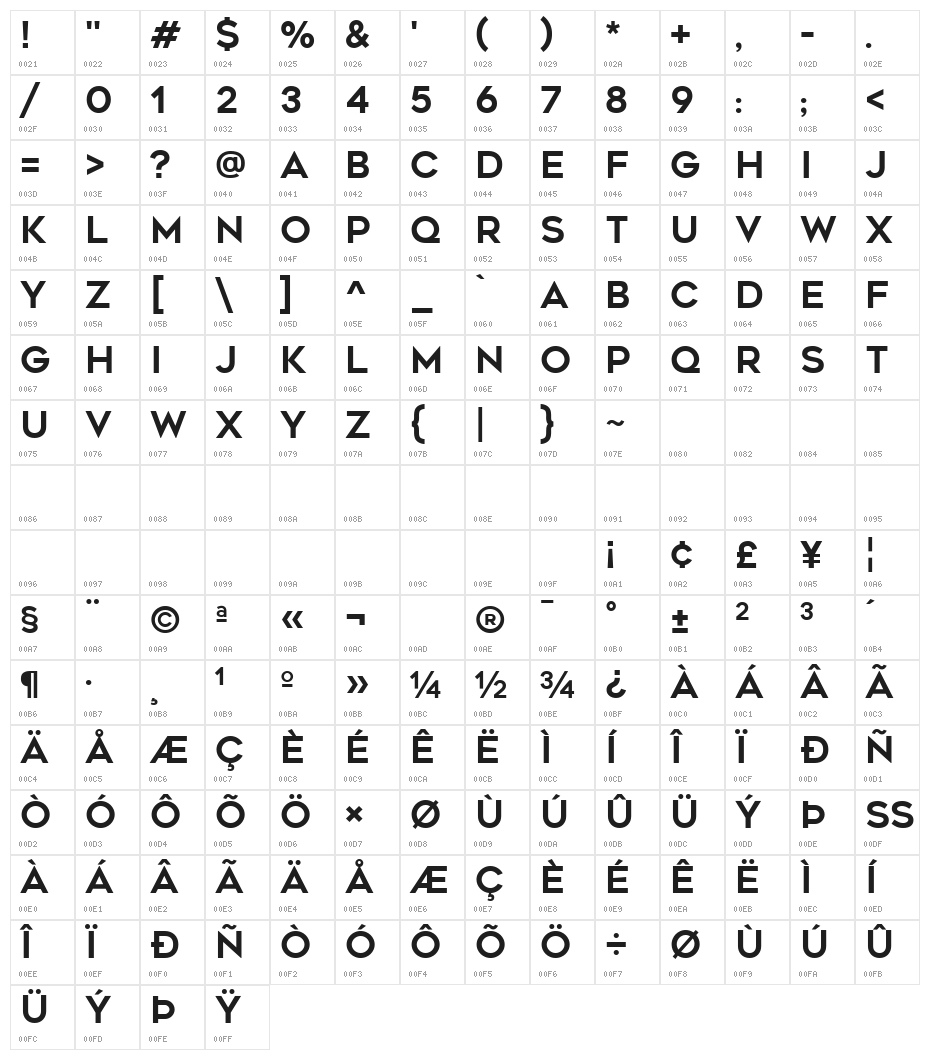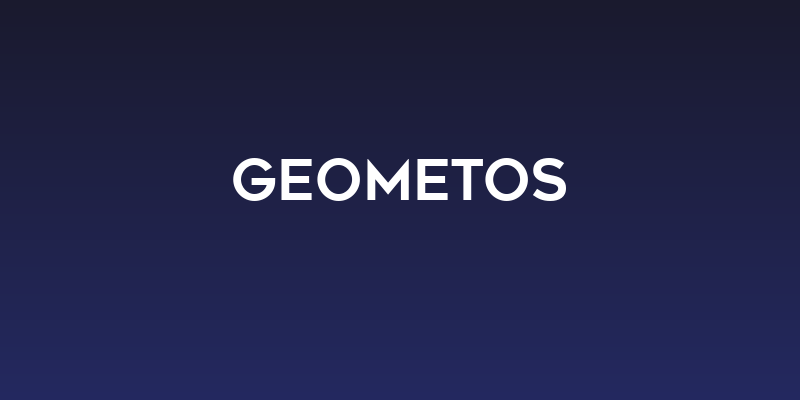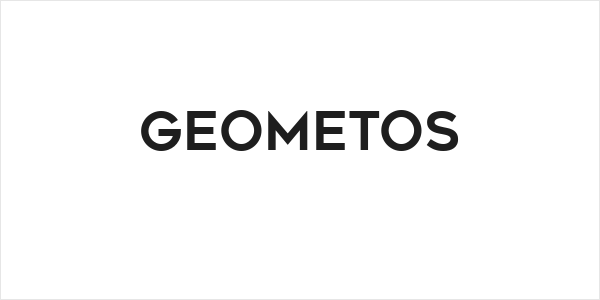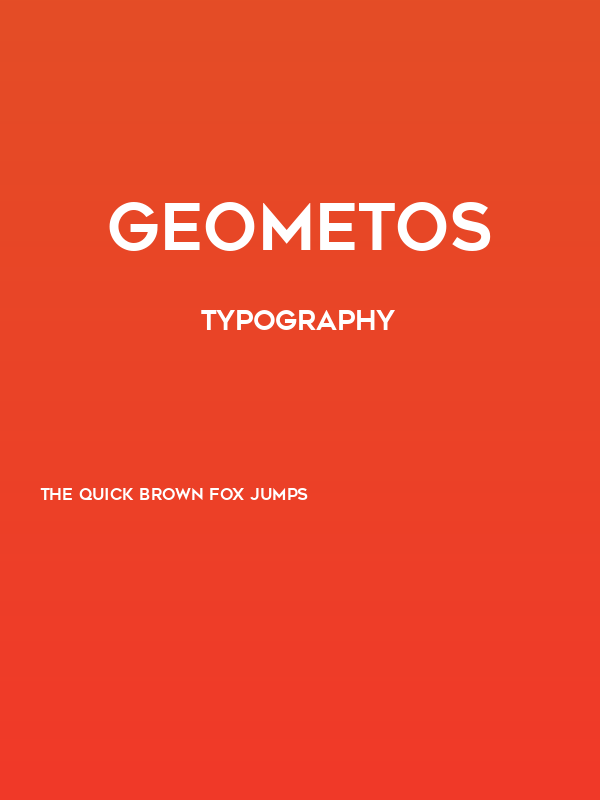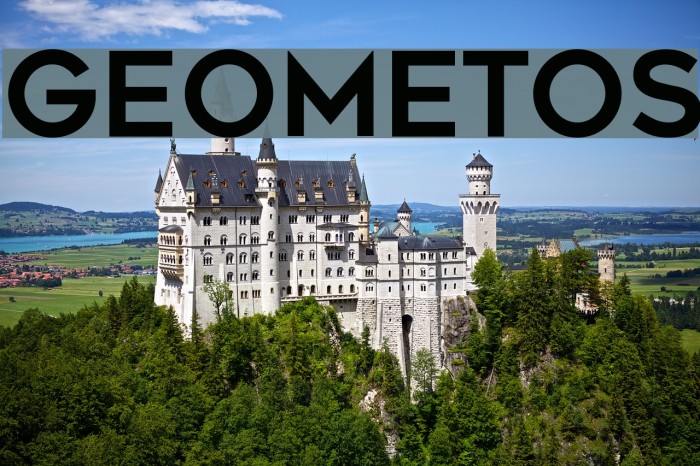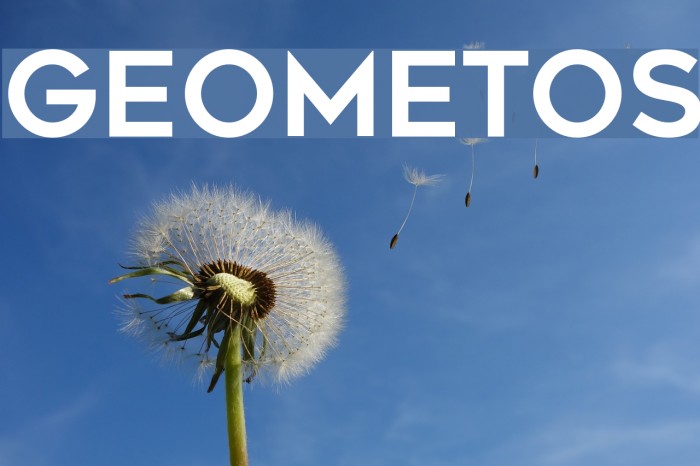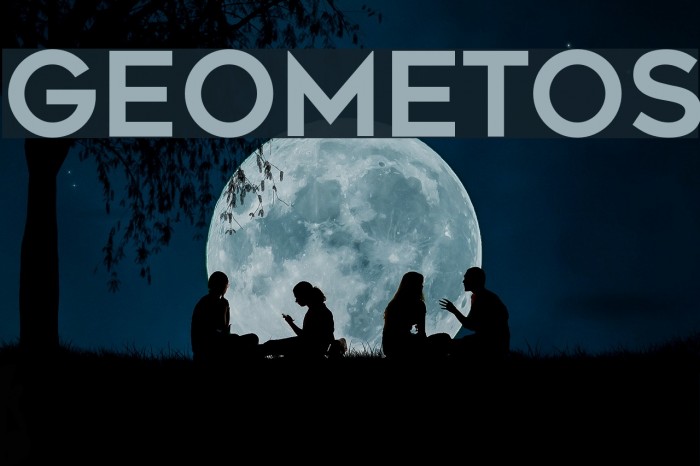
Geometos Font
Geometos Description
This font features a clean and modern sans-serif design with geometric influences. The characters are bold and uniform, offering a strong visual presence. The uppercase and lowercase letters maintain a consistent width, contributing to a harmonious and balanced appearance. The numerals are clear and easily distinguishable, making them suitable for various applications. Special characters are well-defined, ensuring versatility in design projects. The overall style is contemporary, making it ideal for modern branding and digital interfaces.
| Use Case | Headlines, Logos, Digital Interfaces |
| Proposed Projects | Ideal for branding, digital interfaces, advertising, and editorial design. |